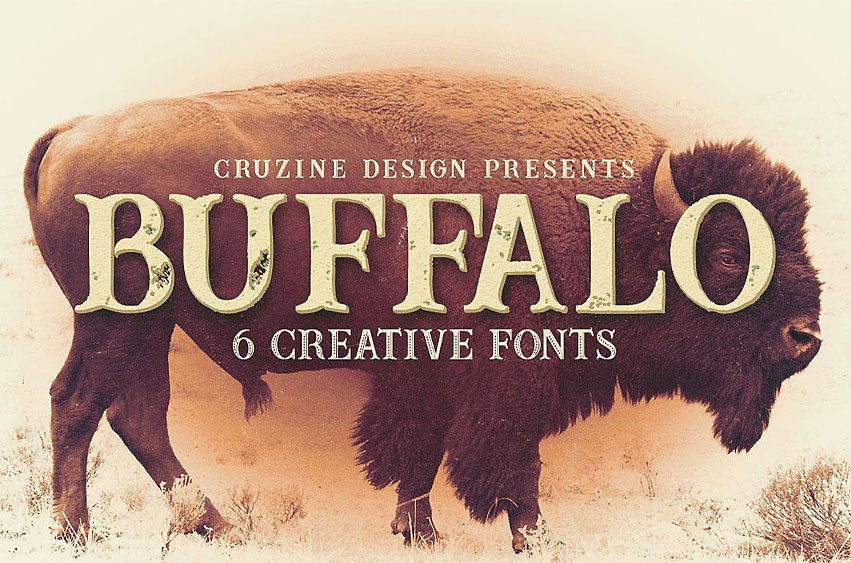
Buffalo Creative Font is a stunning serif styled vintage font, perfect for adding a touch of design from years past.
This is a great serif option that looks great in modern designs as well.